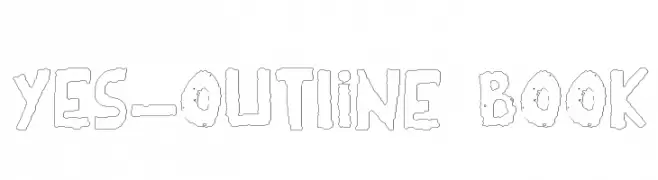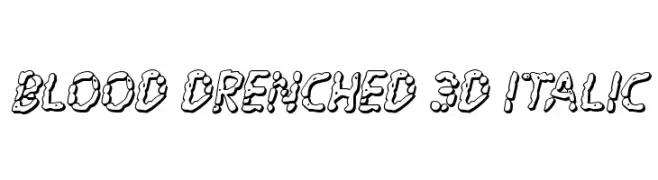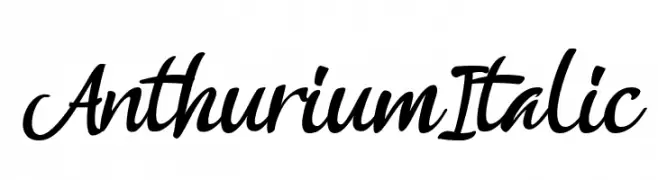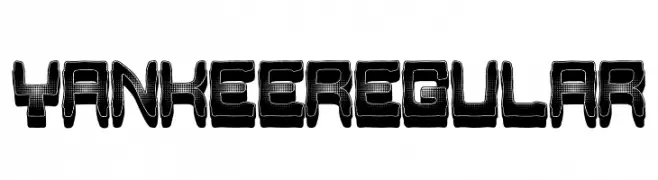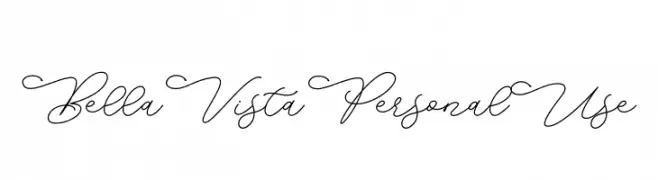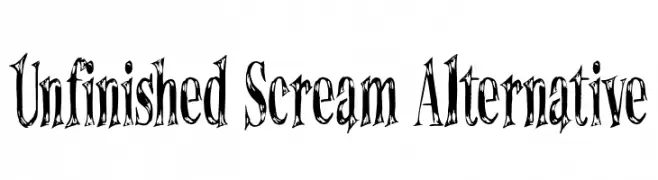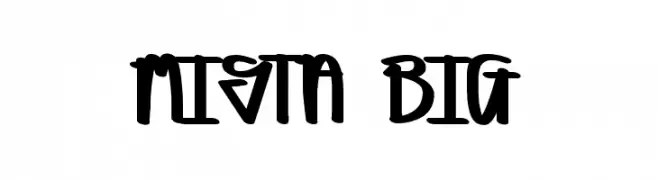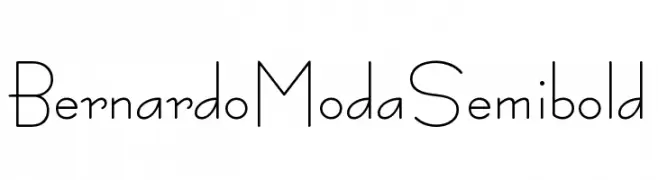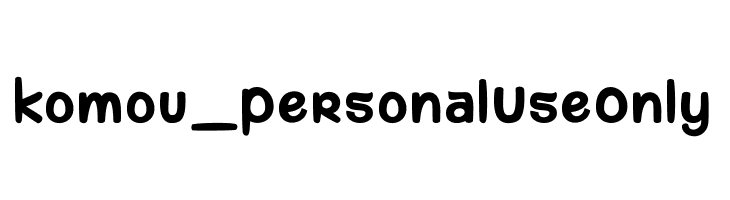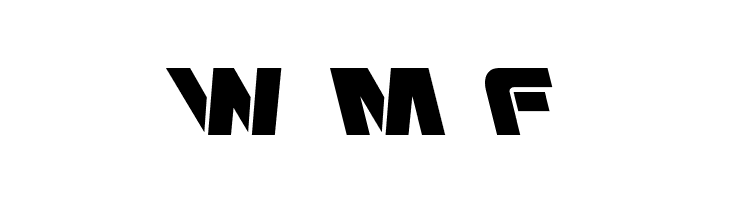
A playful, bold outline font with a hand-drawn, casual style.
A playful, handwritten font with a casual and artistic style.
A bold, 3D italic font with a dripping, liquid texture for a horror-themed aesthetic.
A dynamic and elegant script font with flowing, cursive letterforms.
A bold, flowing script font with a dynamic, hand-lettered style.
A playful, handwritten-style font with bold, rounded strokes and a dynamic slant.
A bold, 3D font with shadow effects and a futuristic style.
An elegant script font with flowing, cursive style and intricate loops.
A dramatic, jagged font with a distressed, expressive style.
A bold, graffiti-inspired font with thick, rounded strokes and a playful urban aesthetic.